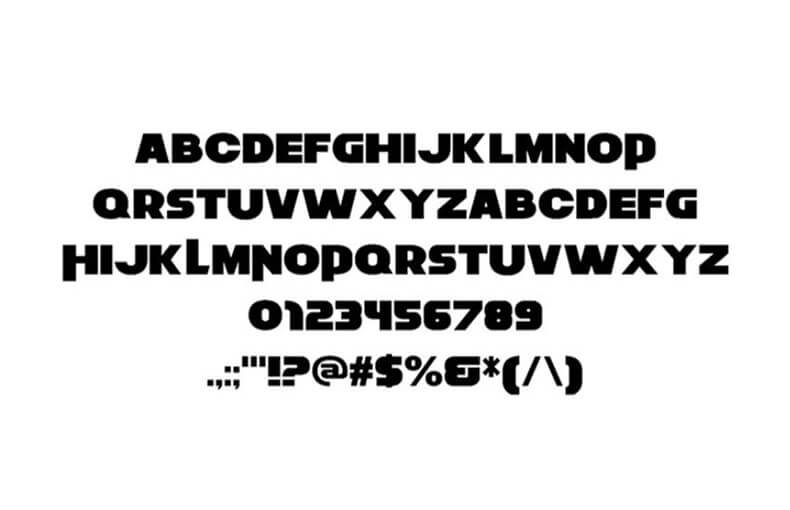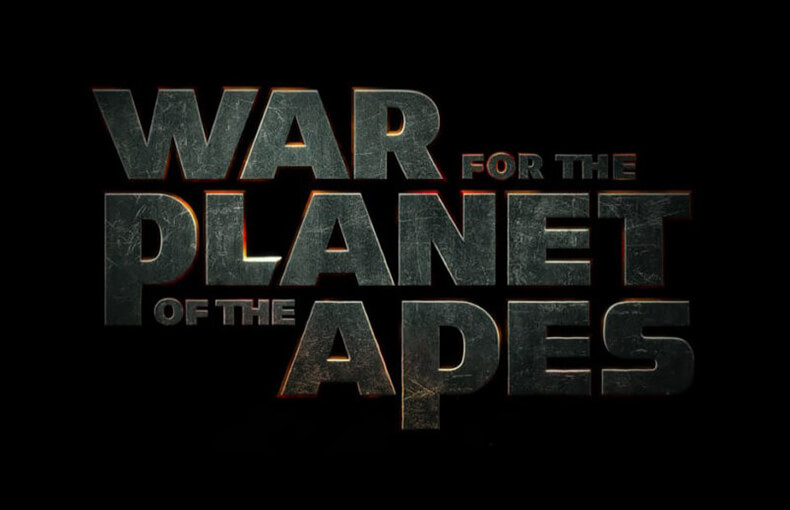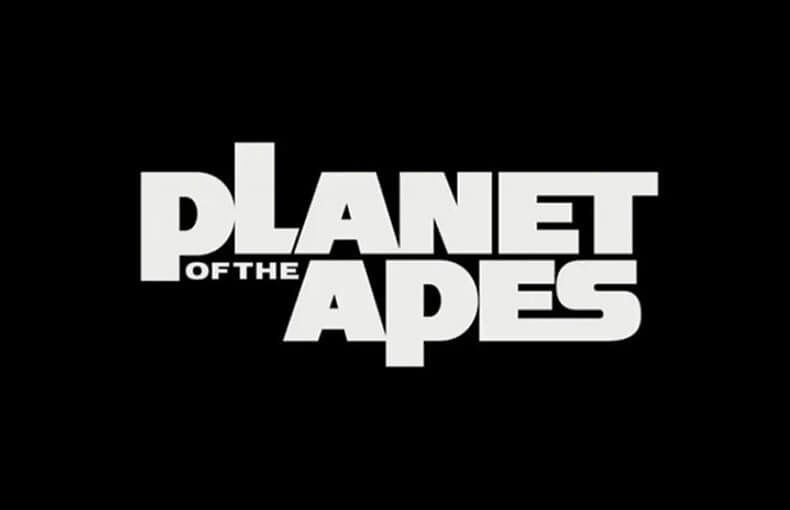
Planet of the Apes Font is a fancy display and modern typeface. That cartoon alphabet consists of upper- and numbers, and punctuation.
It has a stunning bold texture created by means of the designer with strong strokes. And to create it, he took inspiration from the poster of the film Planet of the Apes.
This movie is an American science fiction movie that was launched on February 8, 1968. It was directed by way of Franklin J. Schaffner and produced by means of Arthur P. Jacobs.
Because of their story, he gained worldwide fame and now its new parts are being launched which is attracting many designers for its logo font.
The font features bold, block letters that convey a sense of power and strength, reflecting the dominance of the intelligent apes in the film series.
What is the Planet of the Apes Font?
The Planet of the Apes Font is a typeface inspired by the iconic lettering used in the “Planet of the Apes” movie franchise.
Who designed the “Planet of the Apes” font?
The “Planet of the Apes” font, was designed by noted American type designer Hermann Zapf.